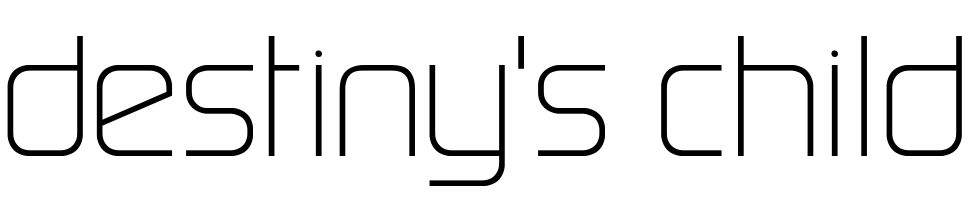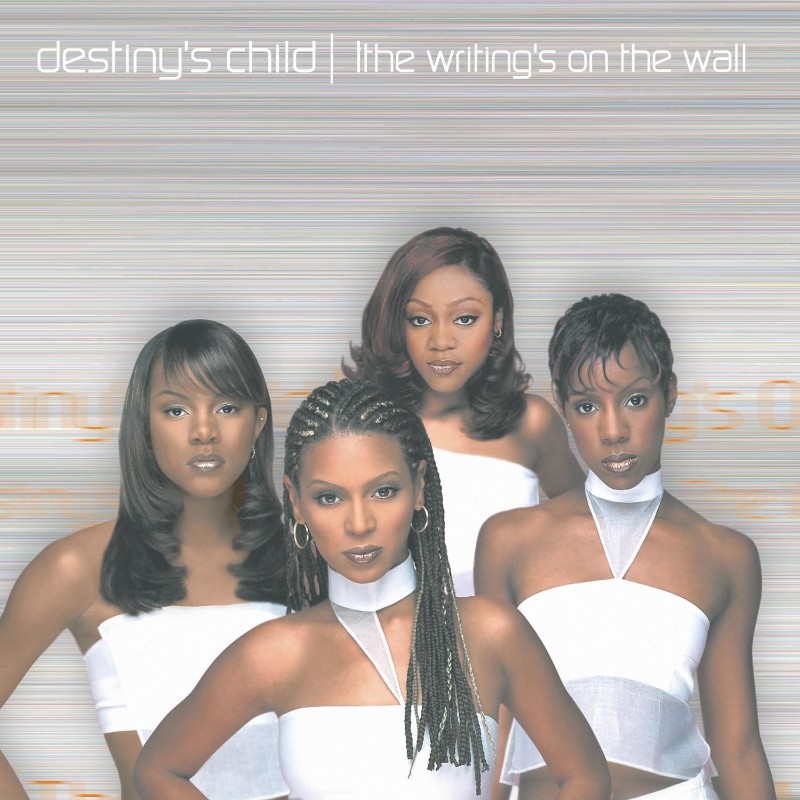
Destiny's Child Font
Fonts in UseDestiny's Child's album "The Writing's on the Wall" was released in 1999 and became a commercial success, featuring hits like "Bills, Bills, Bills" and "Say My Name" which helped establish the group as a major force in the R&B scene.
Sol Regular by Canada Type is similar to the font on the cover art. Sol Pro is a sans serif font family based on VGC's 1973 classic Sol design, available in Regular and Condensed styles with five weights and oblique styles.